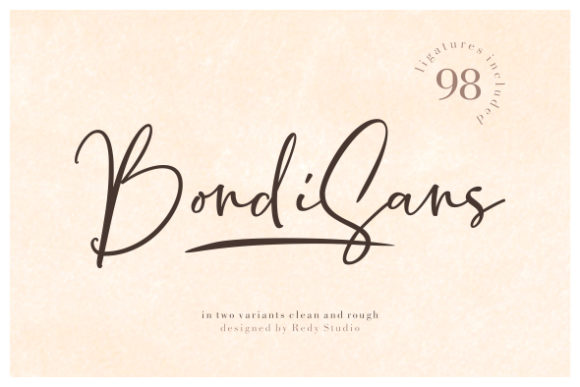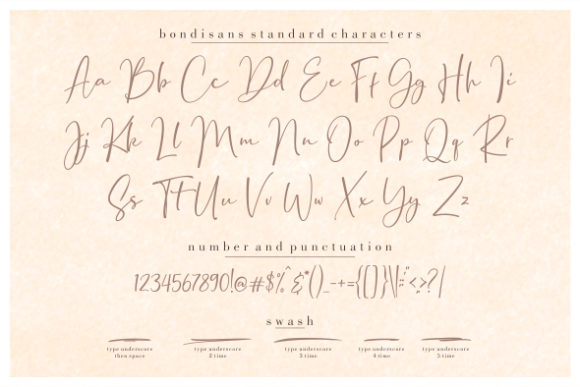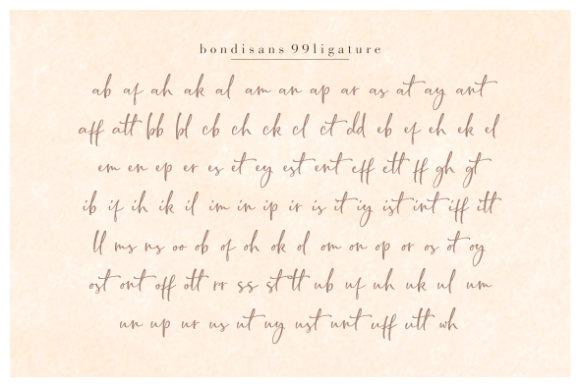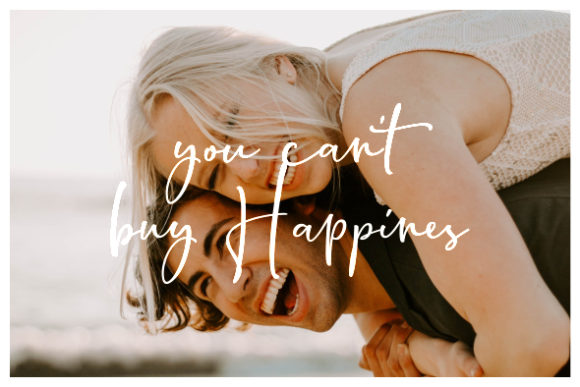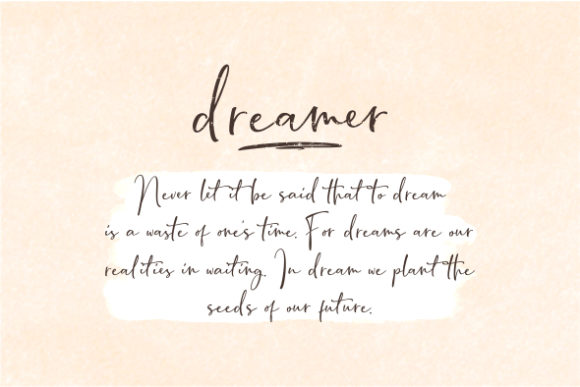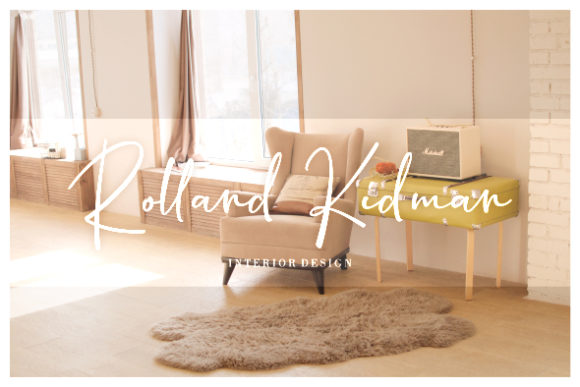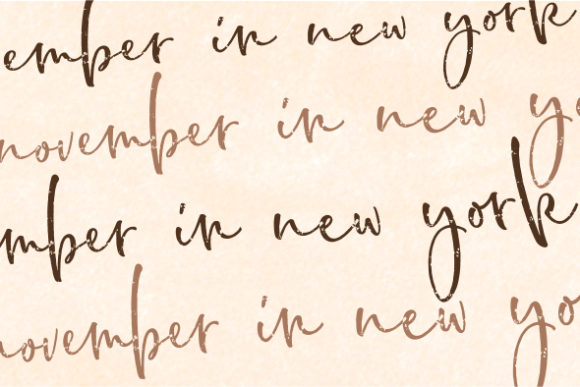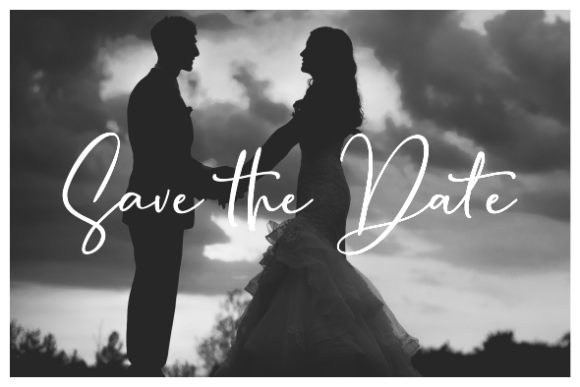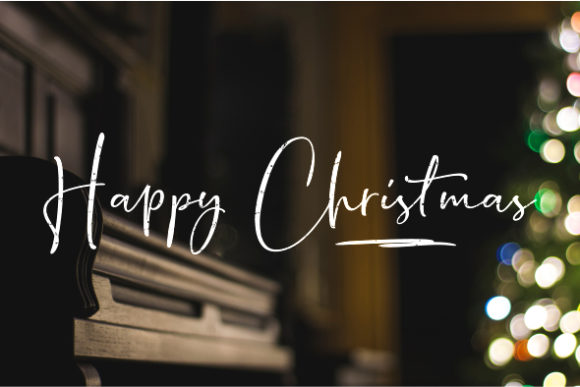
BondiSans Font
About BondiSans Font
The BondiSans is a bold, messy script font. It has an unique handwritten feel with a rough touch.
It’s great for logos, printed quotes, badges, insignia, packaging, headlines, greeting cards, wedding invitations, and much more!